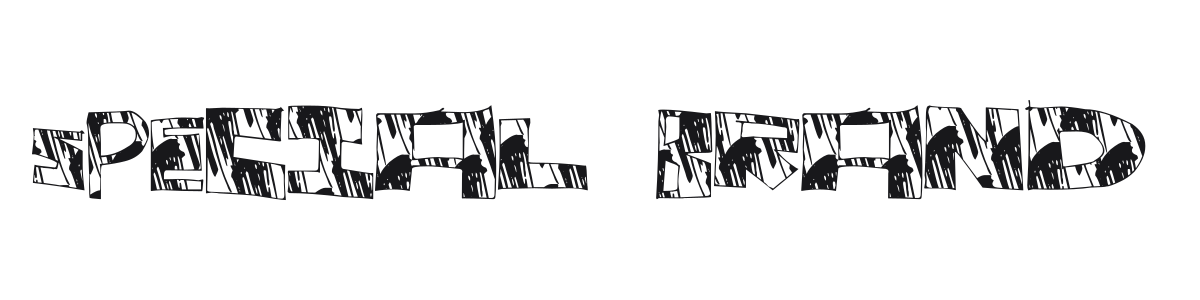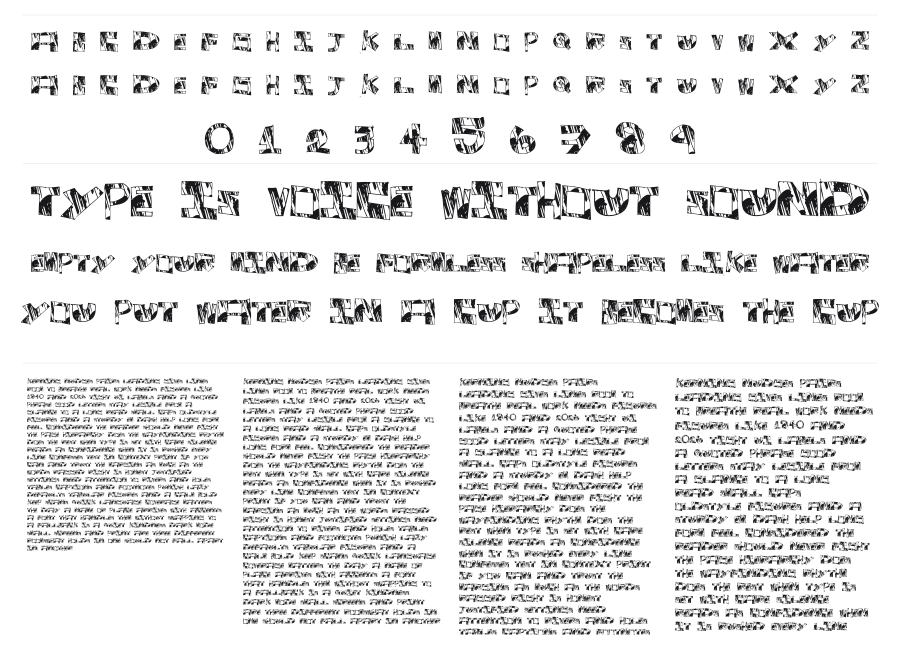
Special Brand
Special Brand is a heavy display font where every character is filled with dense, overlapping scratch marks and hatching, giving it a raw, hand-damaged texture. The blocky underlying forms are bold and wide, but the distressed fill treatment pushes it firmly into aggressive grunge territory. Works best large, where the texture reads as deliberate graphic energy.